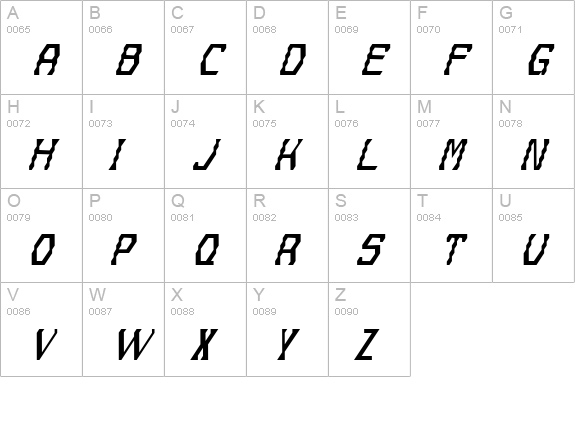
Gyrussian Font Details
Introducing Gyrussian Font, a modern and stylish typeface that exudes elegance and sophistication. With its sleek lines and unique design, Gyrussian Font is perfect for adding a touch of class to any project. Whether you're designing a logo, creating a website, or crafting a brochure, this font is sure to make a statement. What sets Gyrussian Font apart is not only its stunning aesthetic appeal but also the fact that it is completely free to download. That's right - you can access this high-quality font at no cost, making it the perfect choice for budget-conscious designers and creatives. Experience the versatility and beauty of Gyrussian Font by downloading it today at FontsMarket.com. Elevate your designs with this exquisite typeface and watch as your projects come to life with style and sophistication.